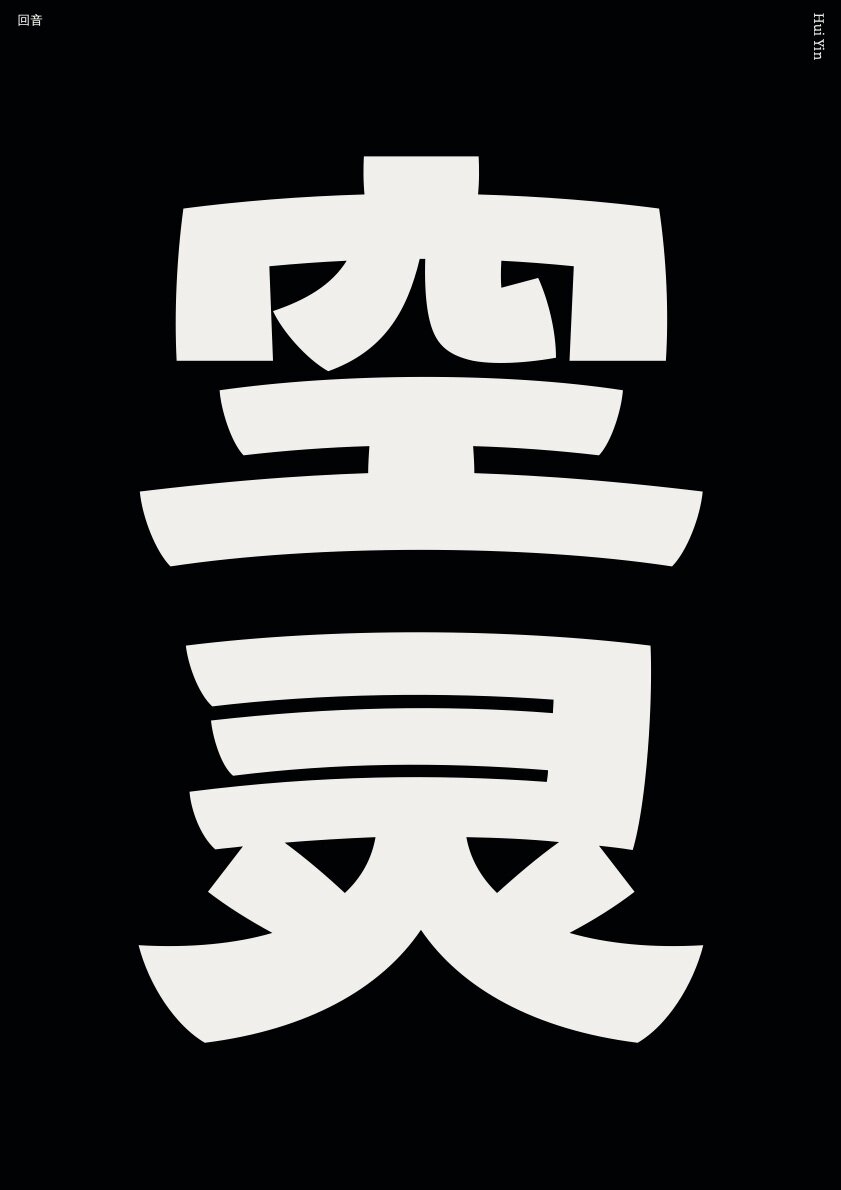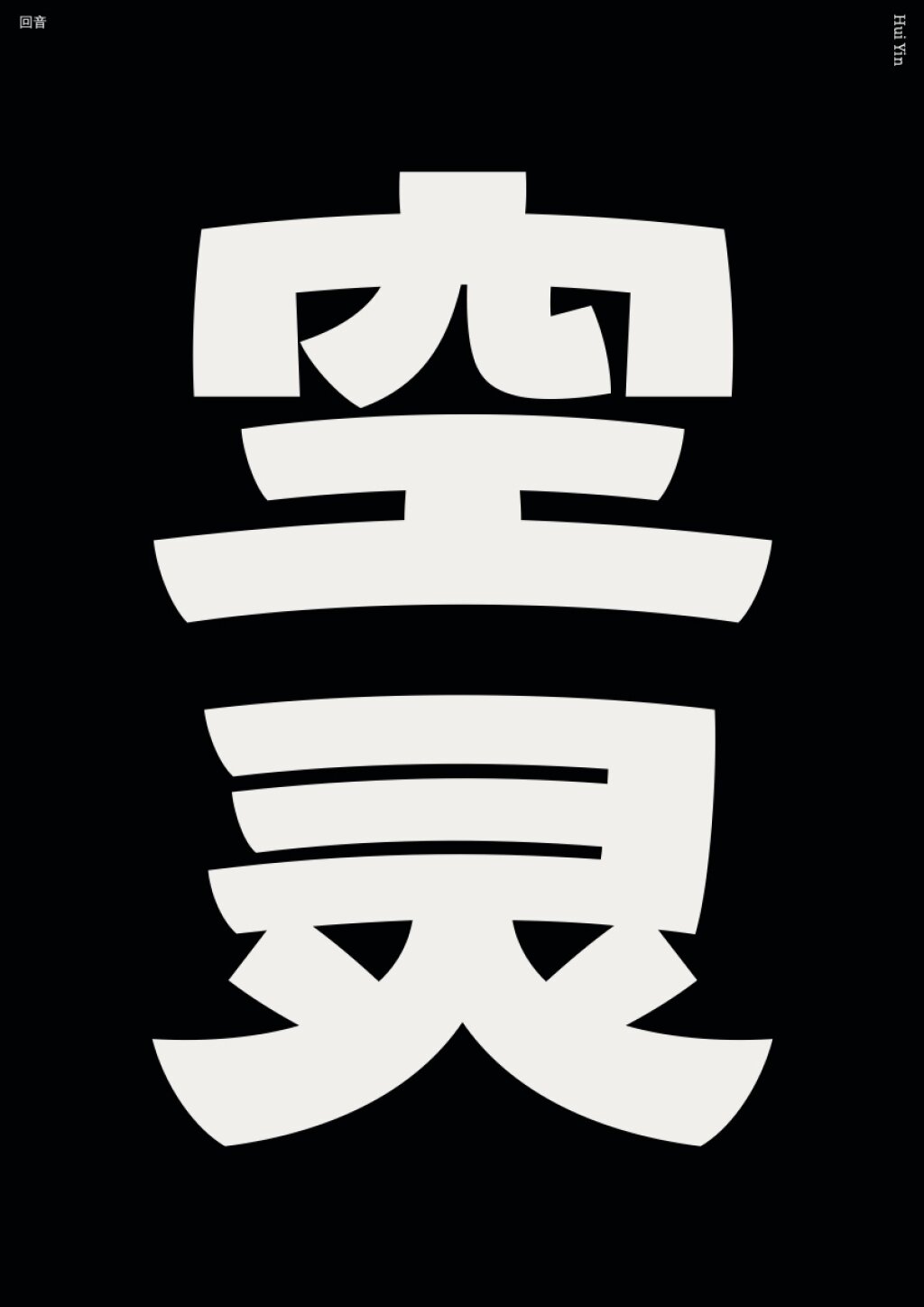
音回 / Yīn huí
by Zhou Chuanhui
Chinese
This typeface has a distinctive style of bold Lishu, with all the horizontal strokes high in the middle and low at the terminals, with a fast speed and cheerfulness. We’ll be curious to see what designers do with Hanzi that have a high number of strokes, and there are errors in the placement of punctuation.
Due to the jury’s decision, this typeface has been moved from the A1 Chinese Text Typefaces to A2 Chinese Display Typefaces Category.
格⻛形字的具独书隶考参构结,体字款一的计设而合结相体黑与书隶以是音回 粗超合结再,整工与一统的体黑失不又,扁宽的书隶取面字。稳沉失不而逸飘 。象印的重稳厚敦以人给体整,画笔的—This is a font designed by combining Clerical Script and Blackletter, the structure refers to the unique glyph style of Clerical Script, which is flowing but not losing its composure. The face of the font takes the broadness and flatness of Clerical Script without losing the unity and neatness of Blackletter, and combined with the ultra-thick strokes, the whole gives people a thick and steady impression.